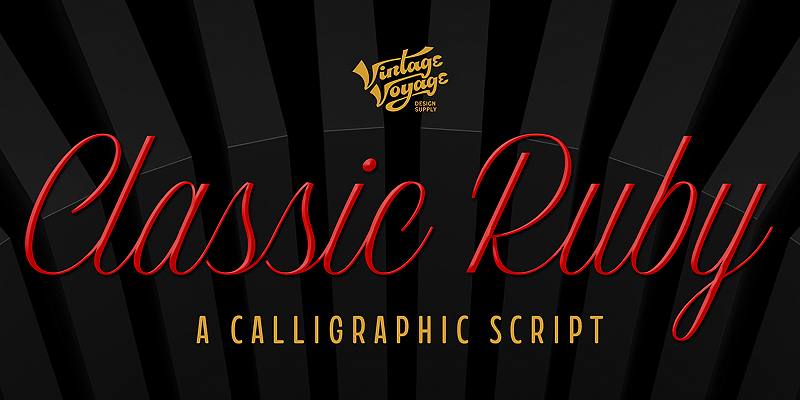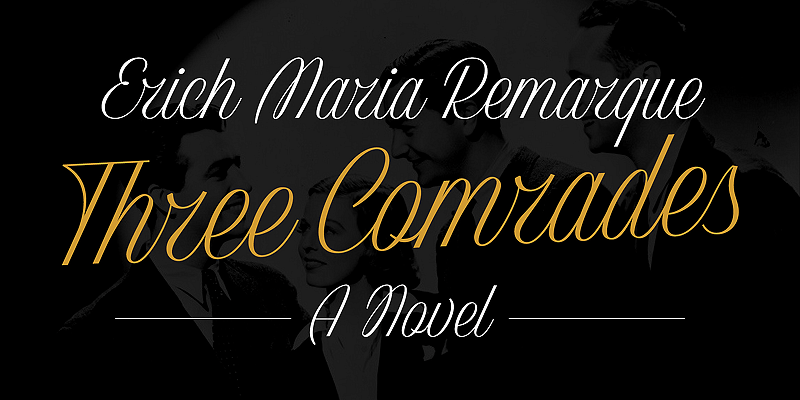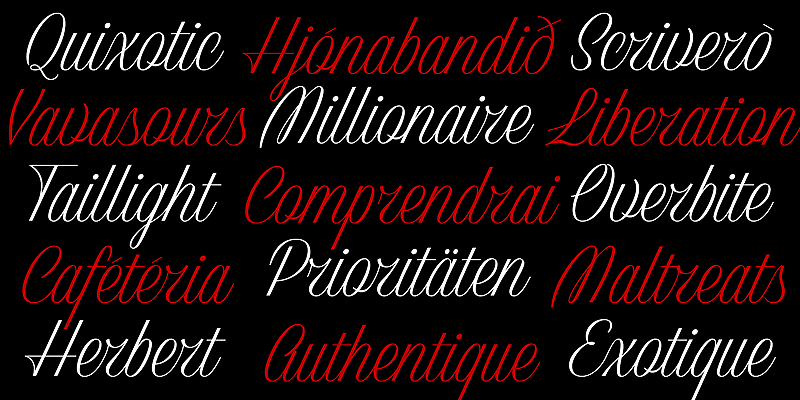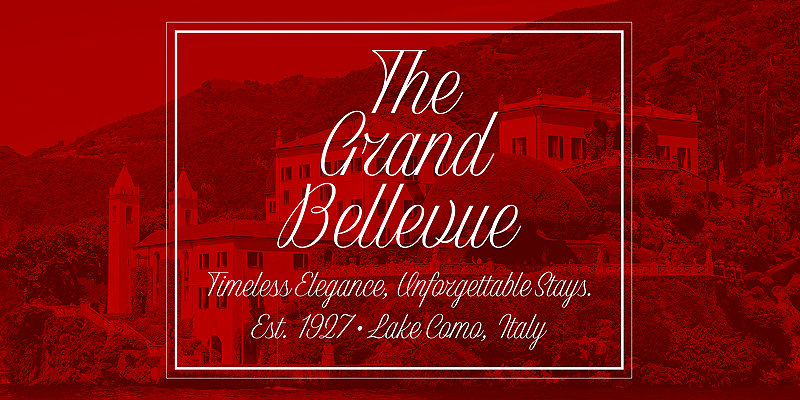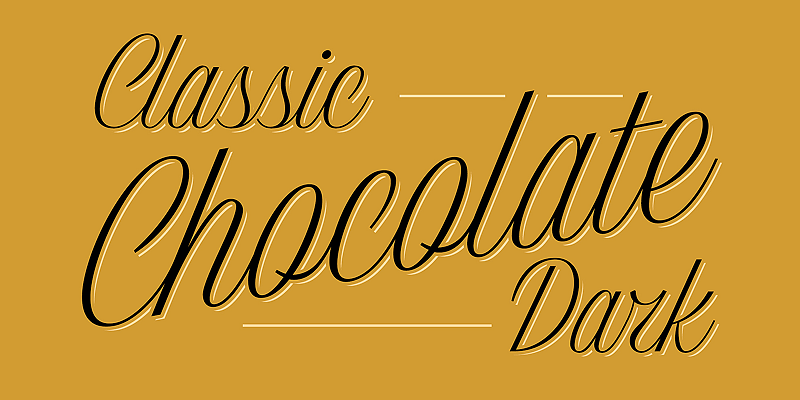
Classic Ruby is a stunningly refined vintage English script, perfectly capturing the elegance of the mid-20th century when the streets were filled with Cadillacs and the airwaves with crooners. The script has a handful of useful alternates and is perfect for wedding party invitations, coffee table books, album covers, event posters, and the pages of a fashion magazine.